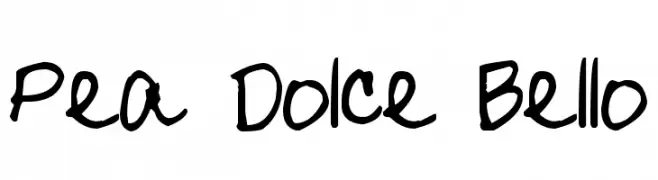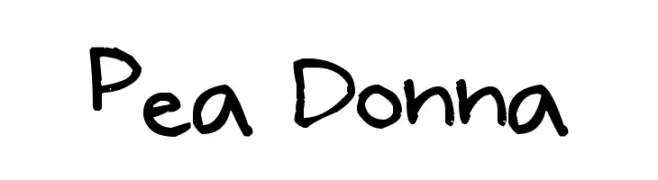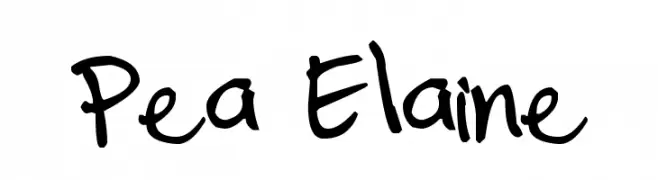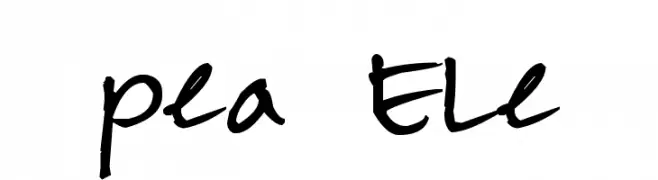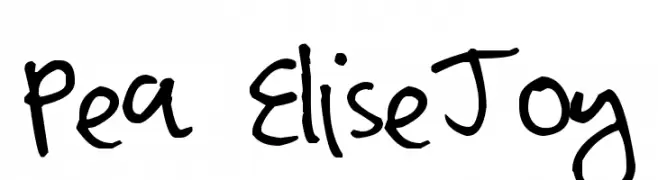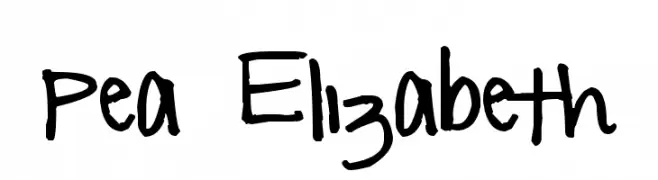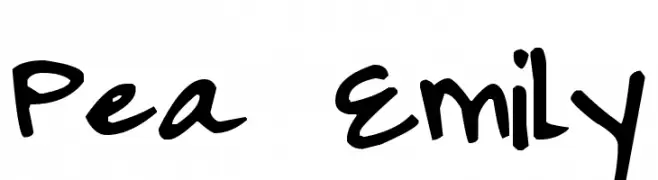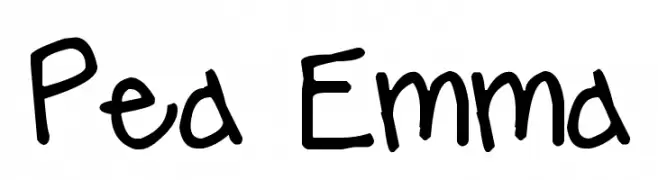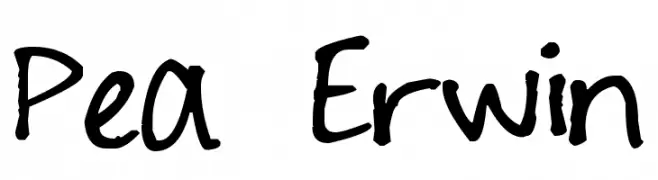
A playful and casual handwritten font with a natural, flowing style.
A playful, handwritten font with bold strokes and a casual vibe.
A playful, casual handwritten font with a dynamic and lively feel.
A casual, playful handwritten font with fluid strokes and a dynamic style.
A playful, casual handwritten font with irregular strokes and a spontaneous feel.
A playful, casual handwritten font with a relaxed and friendly style.
A playful, handwritten font with a casual and friendly style.
A playful, handwritten font with rounded, informal letterforms.
A playful, handwritten font with bold strokes and a casual style.
A playful, handwritten font with a casual and friendly style.